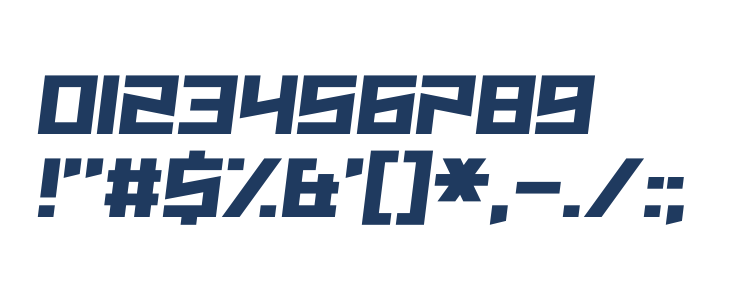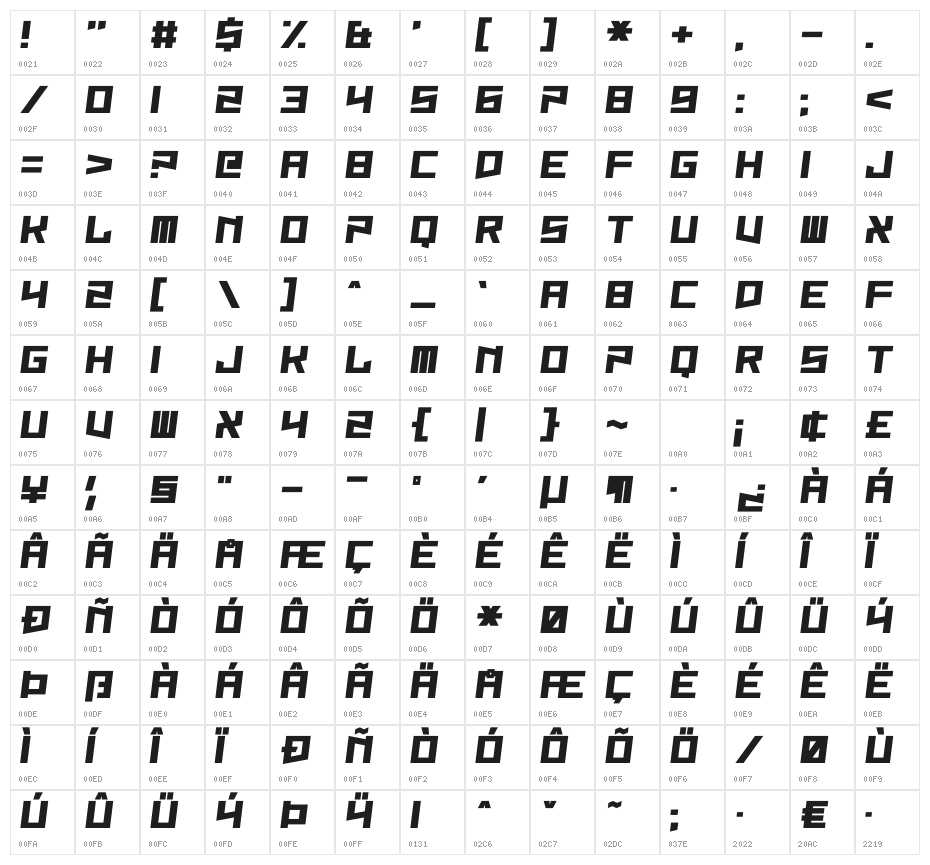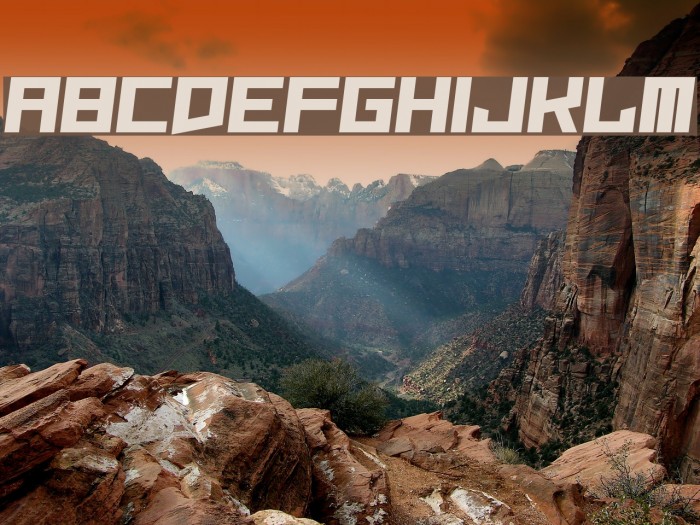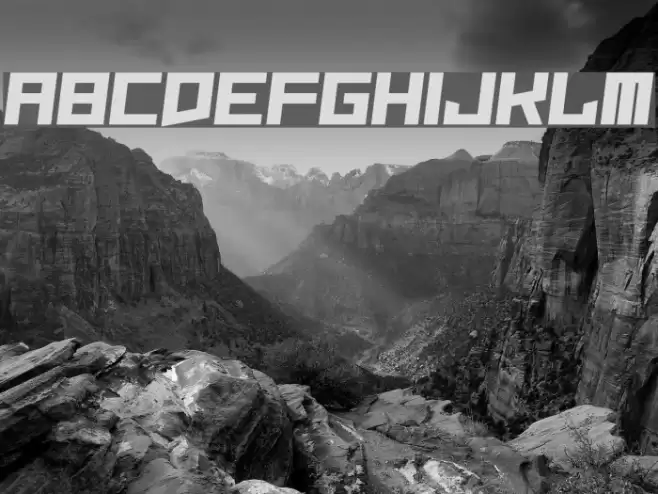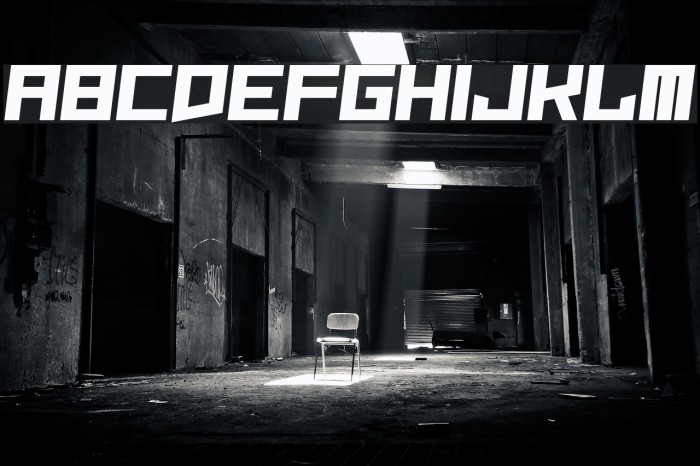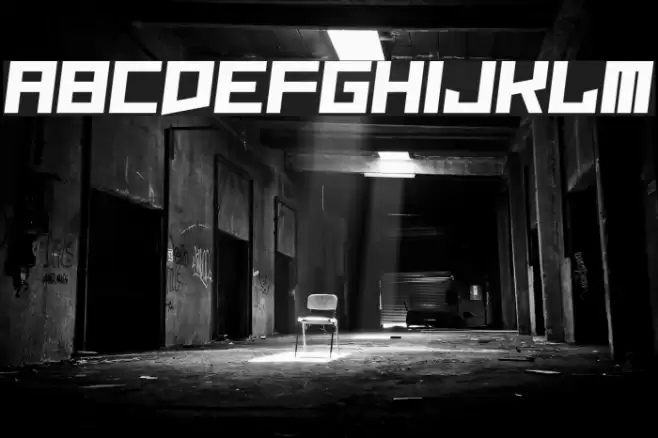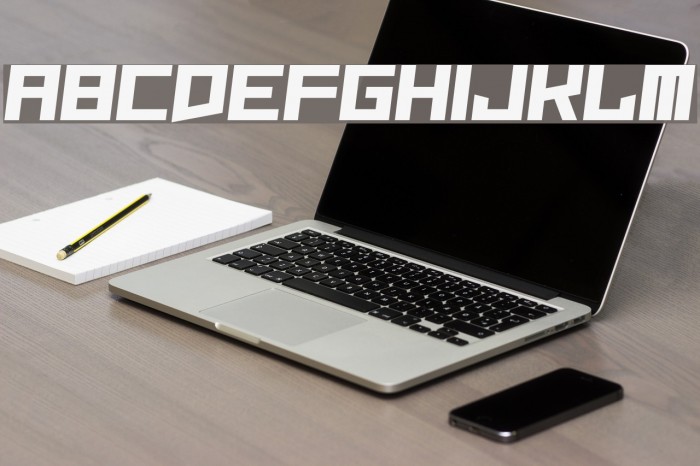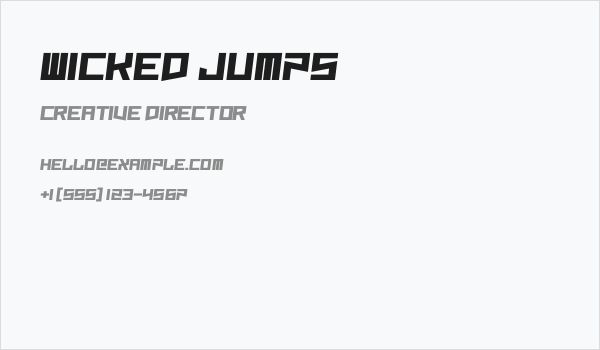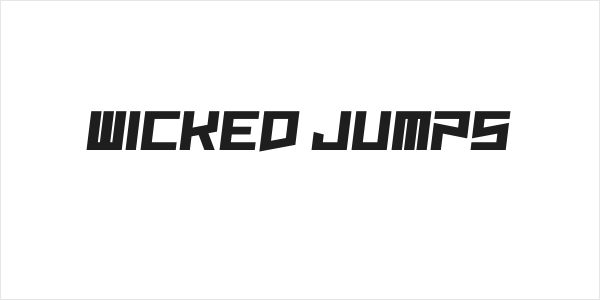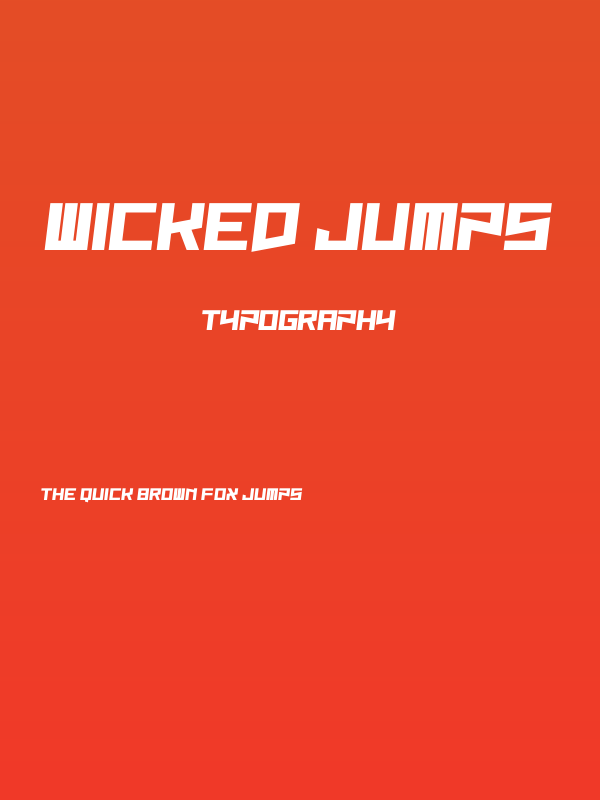
Wicked Jumps Font
Wicked Jumps Description
This font features a bold, angular design with a futuristic and dynamic appearance. The characters are sharply cut with a distinct slant, giving them a sense of motion and energy. The uppercase and lowercase letters maintain a consistent style, with the uppercase being particularly striking due to their geometric forms. Numbers and special characters follow the same aesthetic, ensuring uniformity across all glyphs. The font's boldness and unique style make it stand out, ideal for projects that require a strong visual impact.
| Proposed Projects | Ideal for video game titles, sports branding, posters, and any project needing a bold, energetic look. |